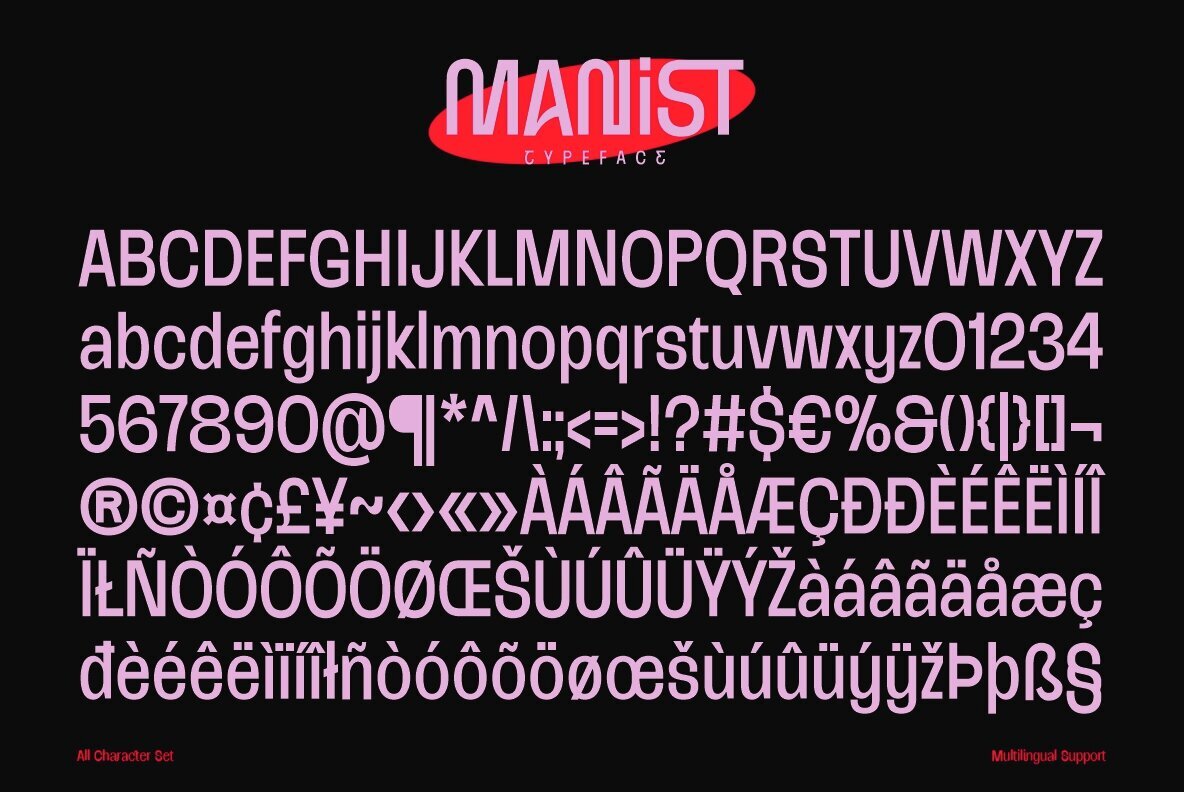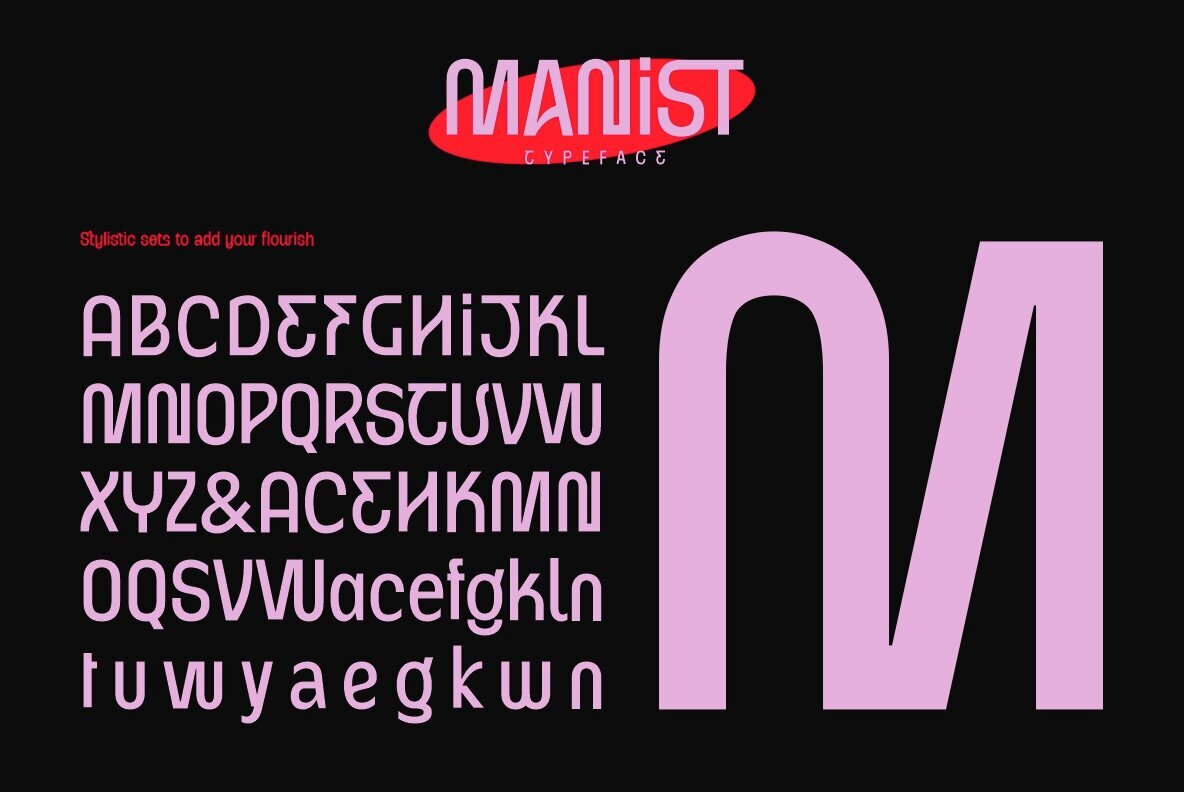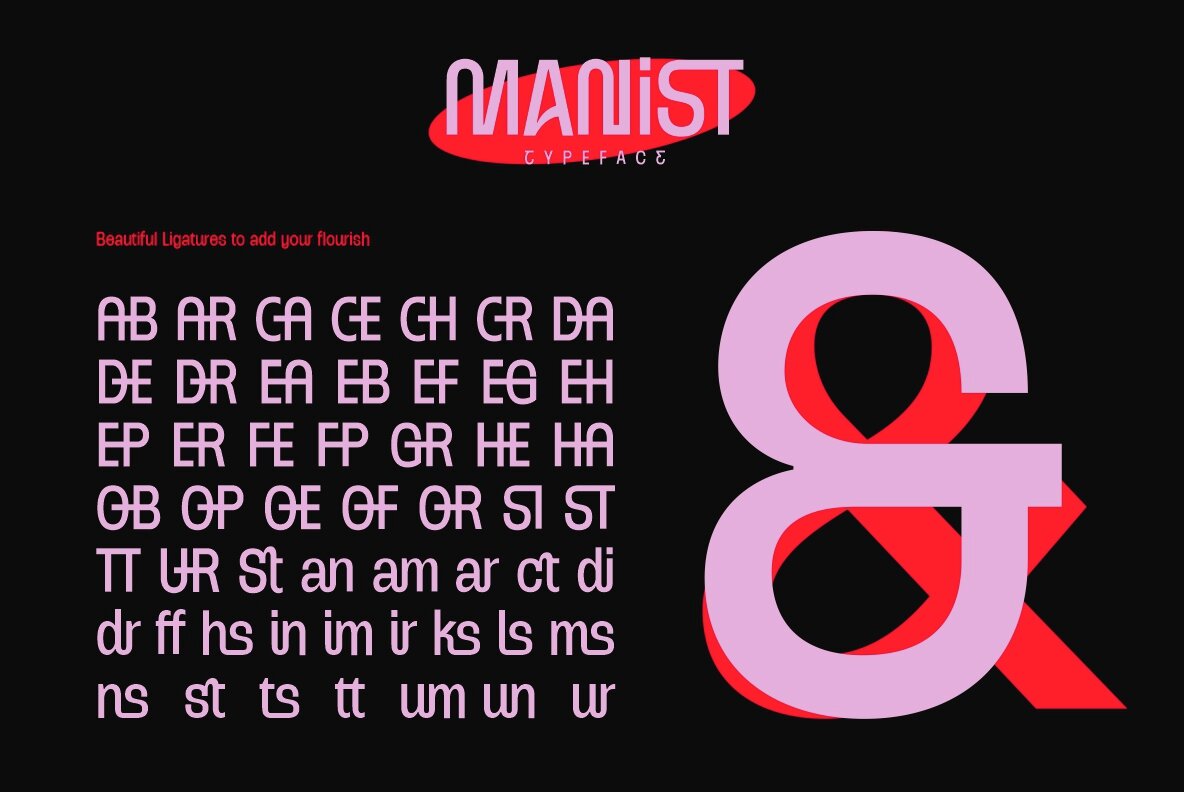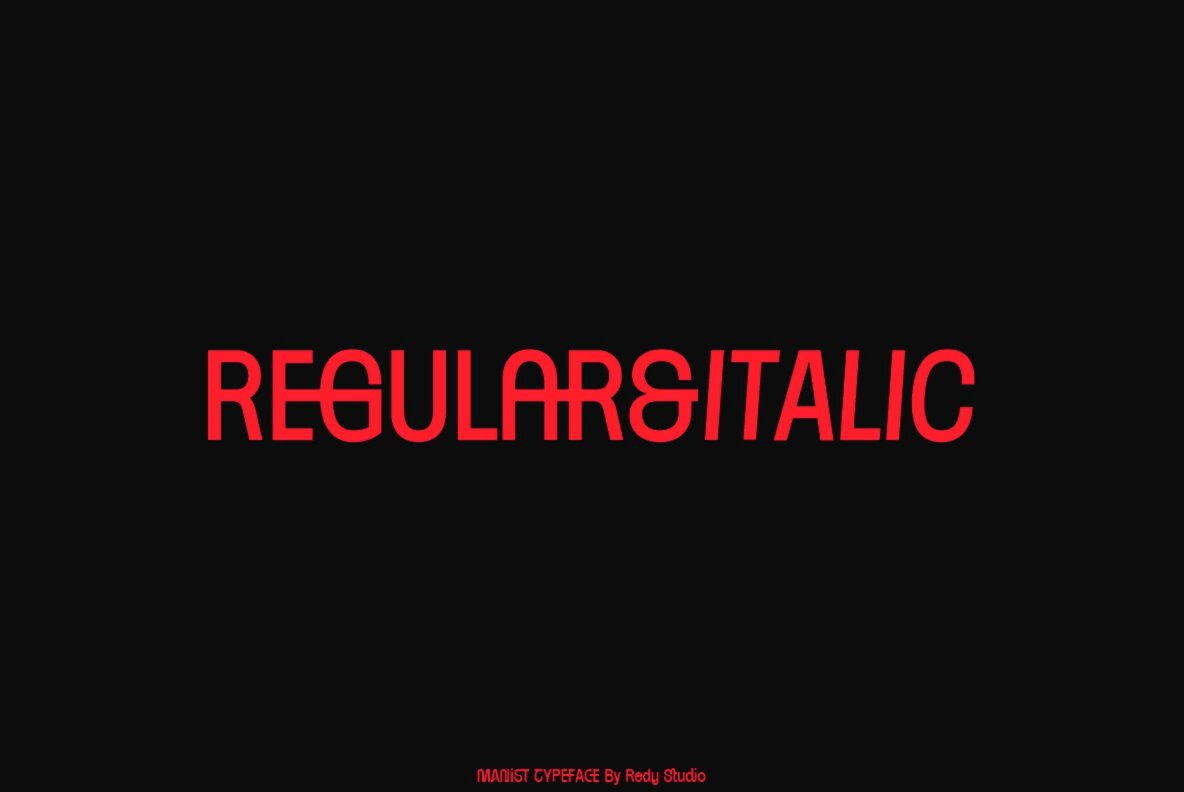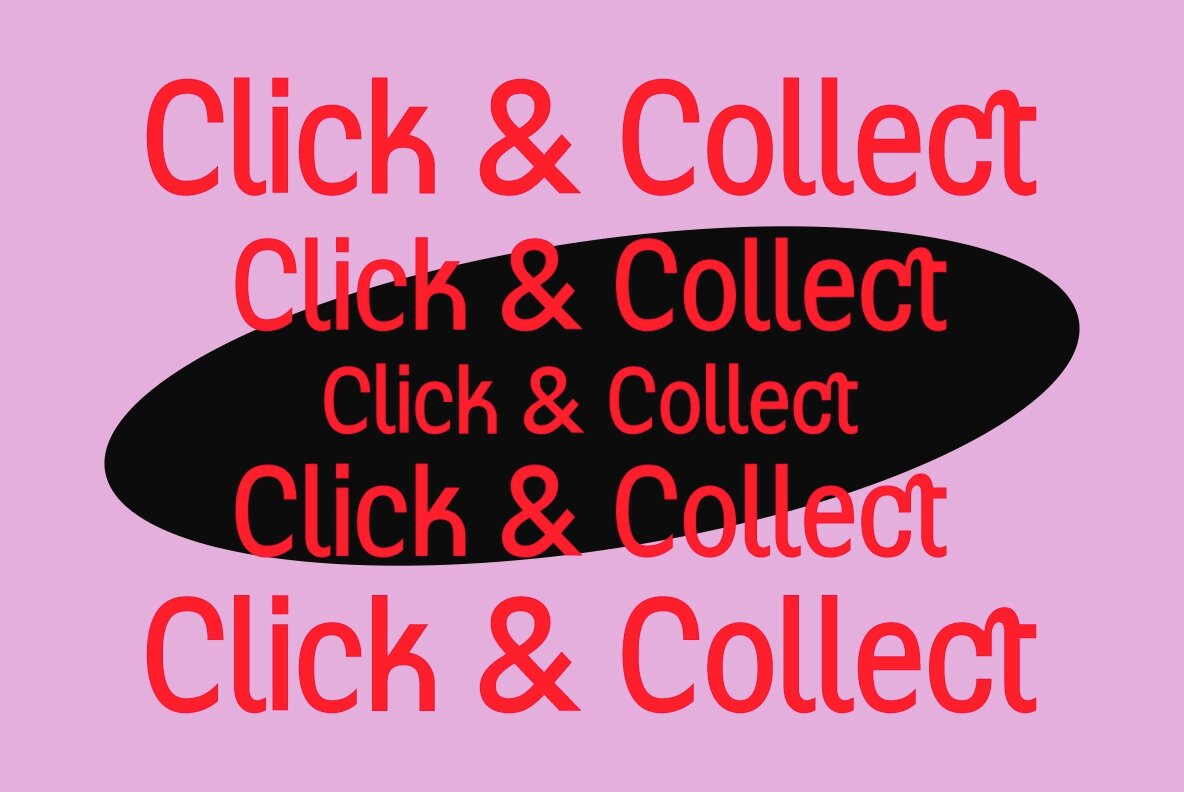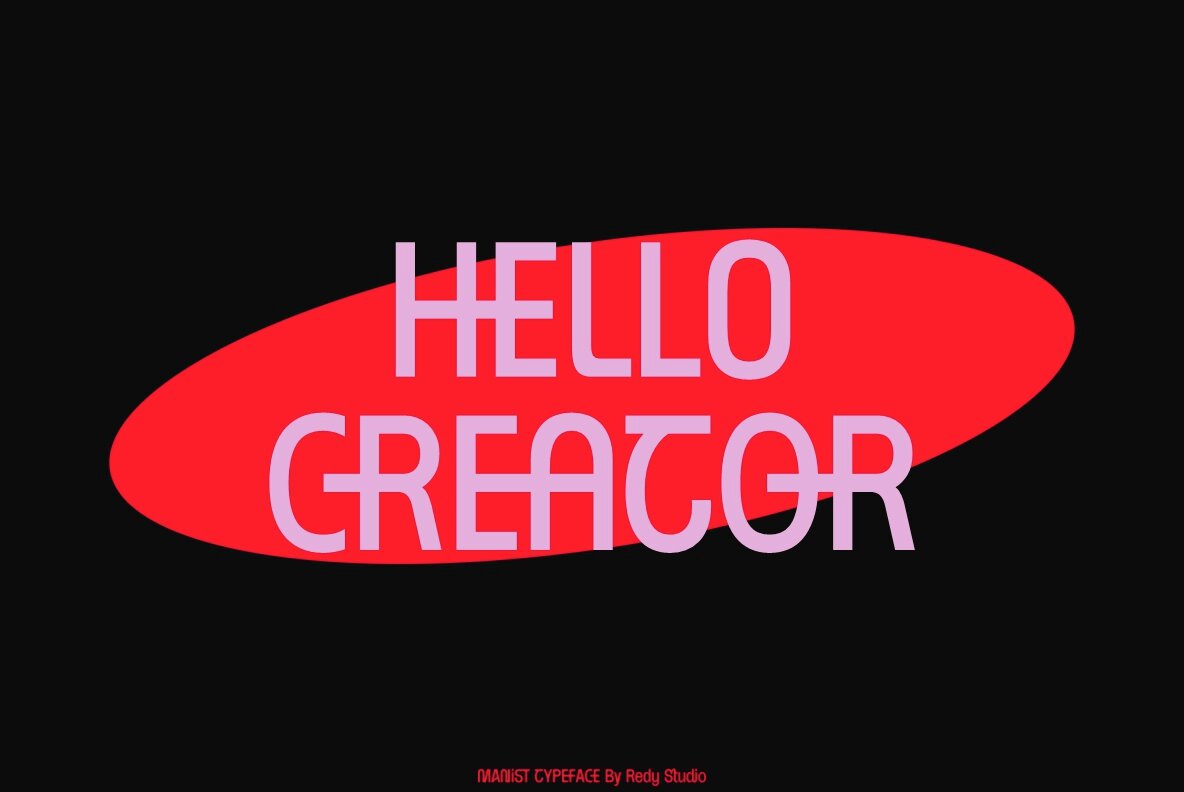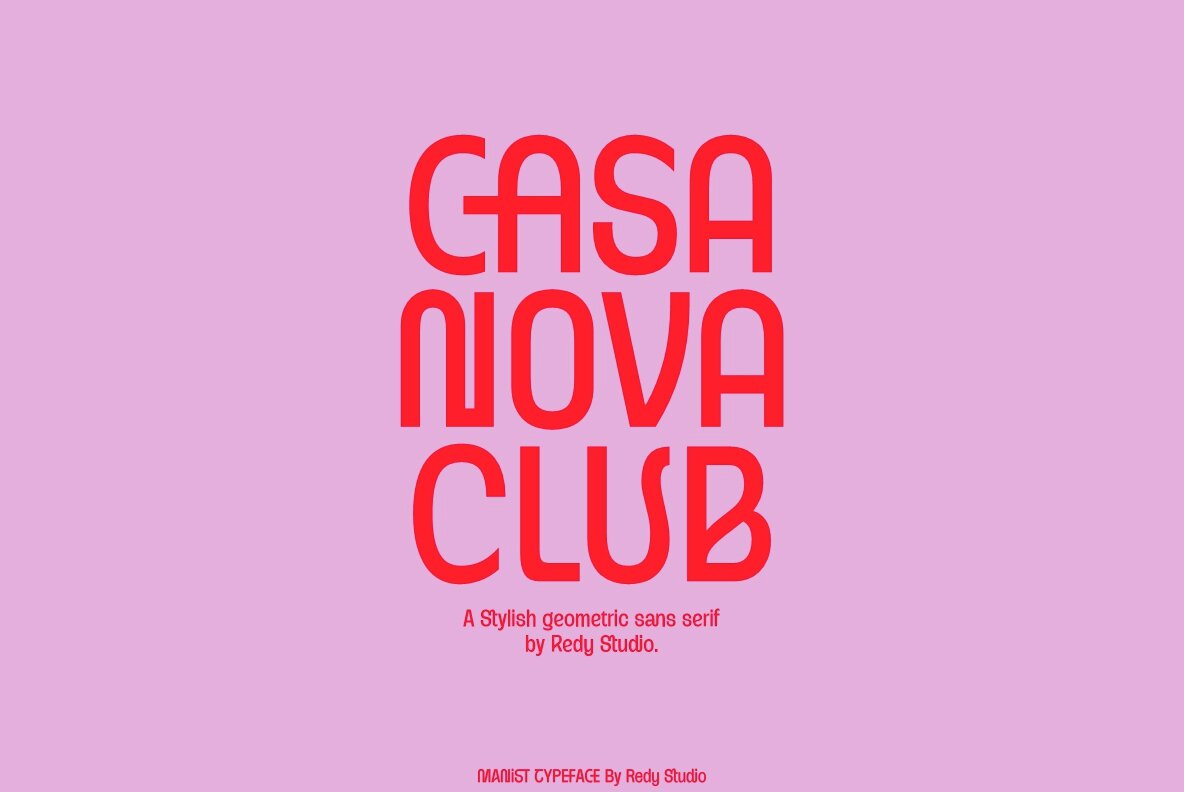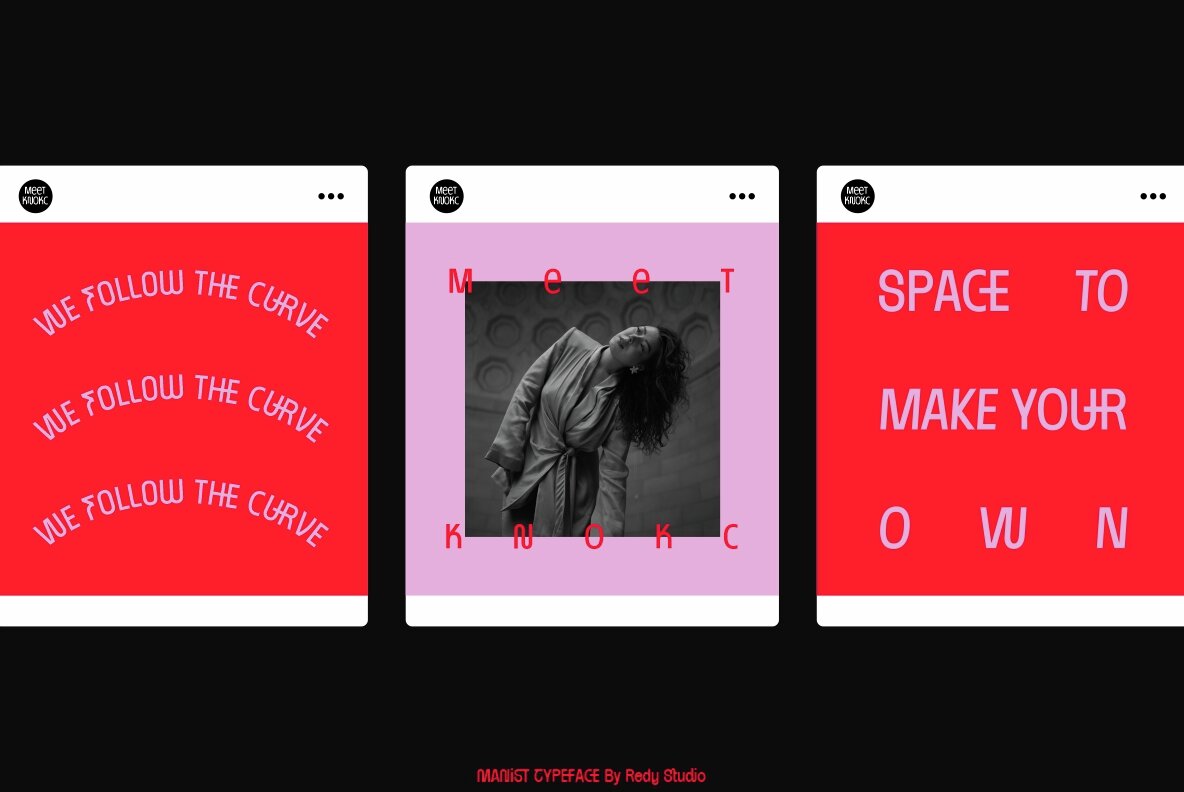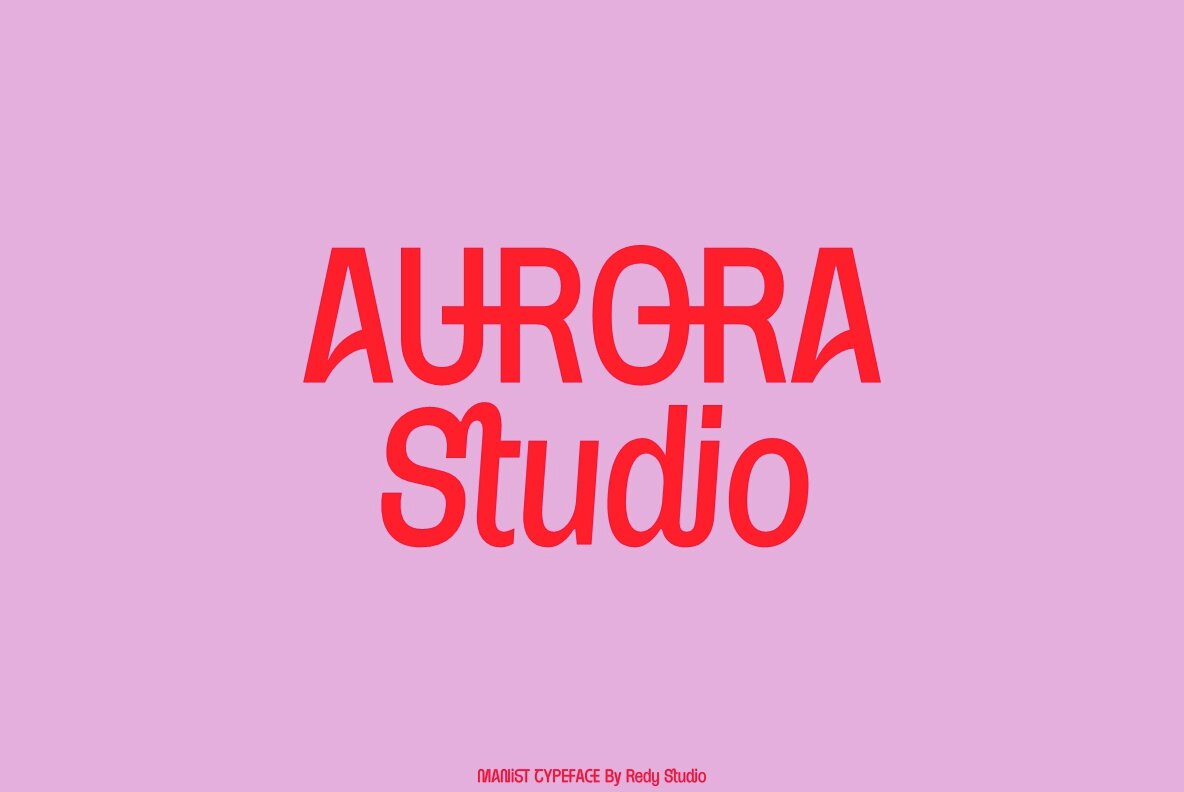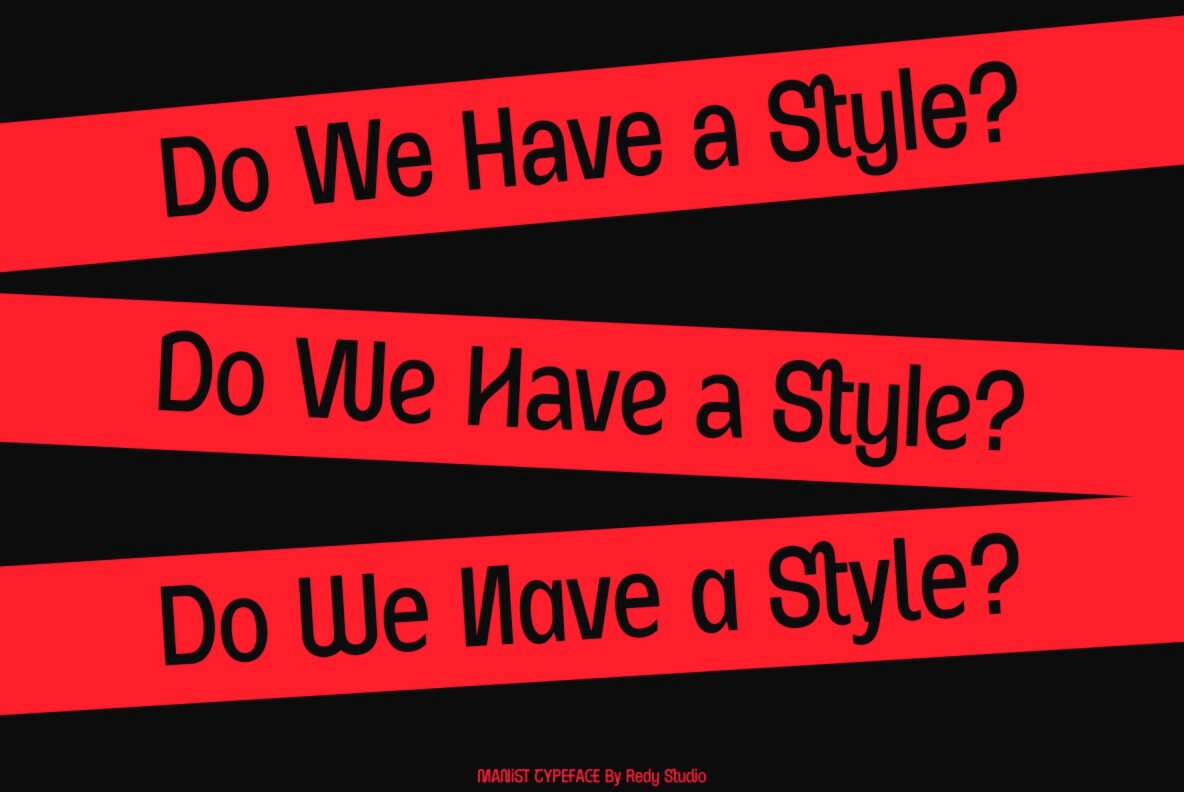
Manist Font
Discover Manist, a seamless fusion of geometric sans-serif and striking display font elements. Carefully designed with precision and innovation, it offers versatility and readability. The typeface features numerous alternative characters and special ligatures, enhancing its casual appeal.